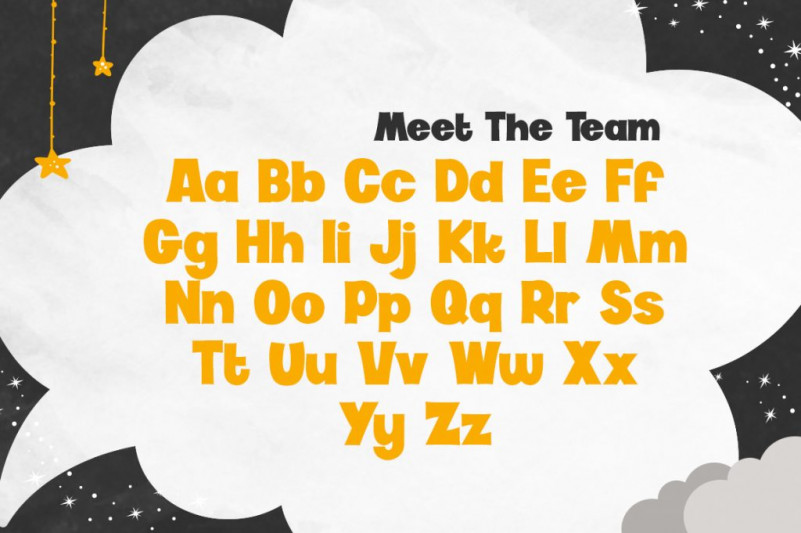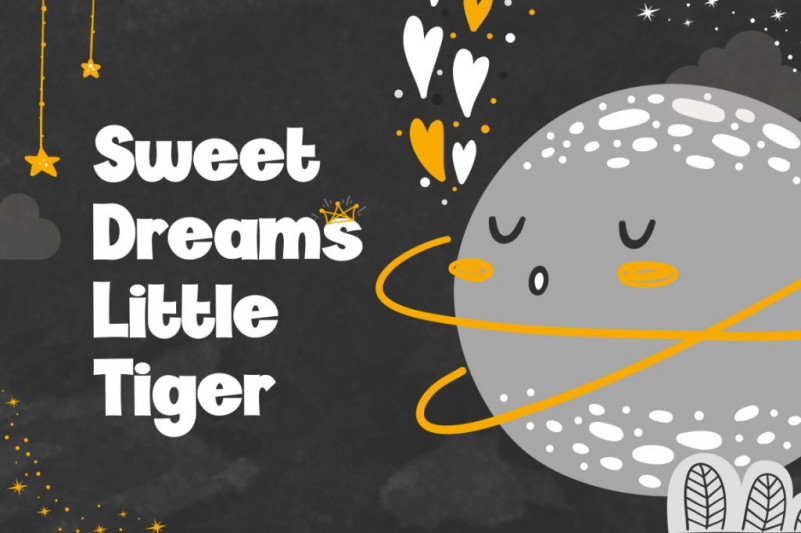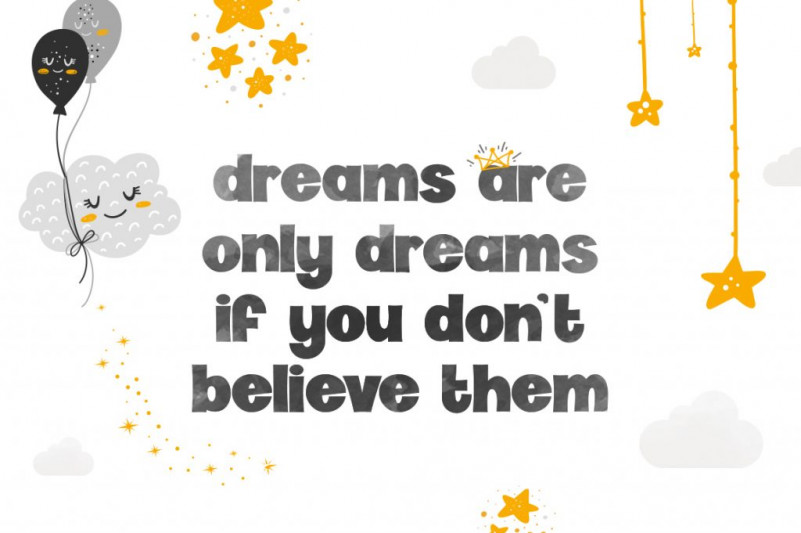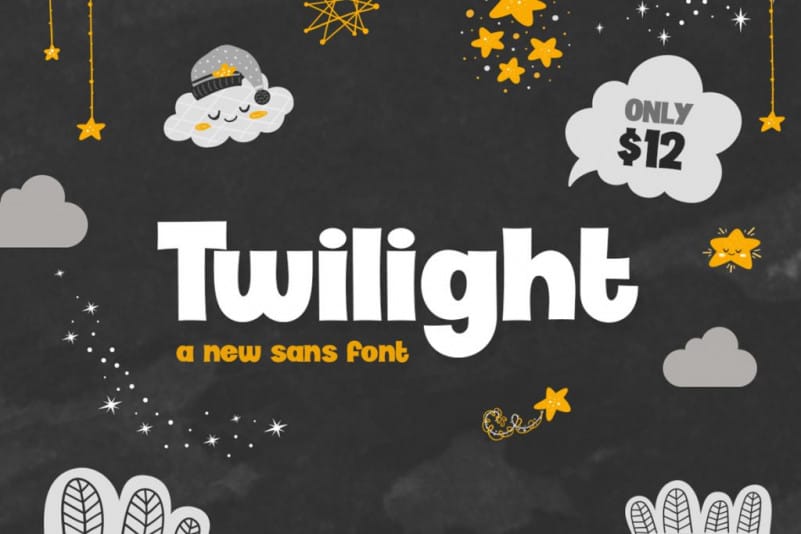
Twilight Typeface
Hello world..!! This is a new sans serif font, classy and perfect for any awesome project. Introducing Twilight Font! Twilight designed and shared by Salt & Pepper Designs. Check out new font Twilight! A fabulous new offering that is sans but not as you know it! Kooky characters are what makes this font unique and offers a more modern twist on a classic. This font would be a good fit for Instagram Quotes, Logotype, Tag lines, and don’t forget to keep it pairing with modern sans serif font too. Enjoy!